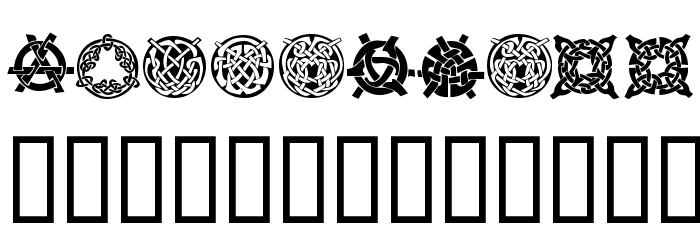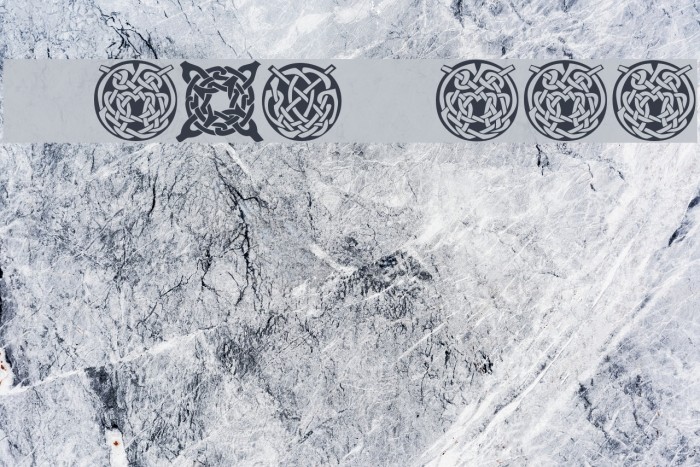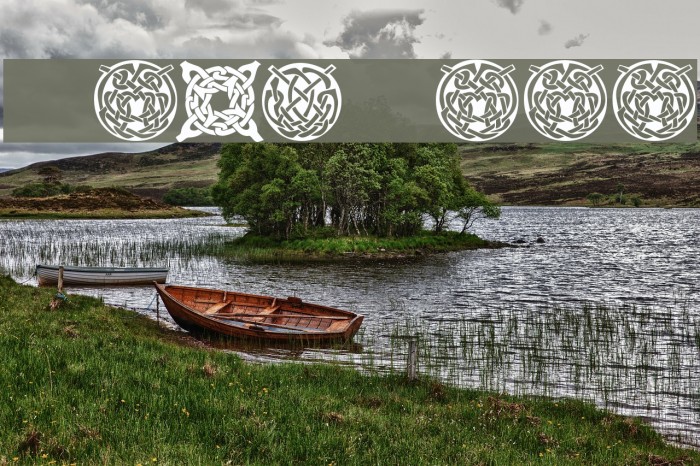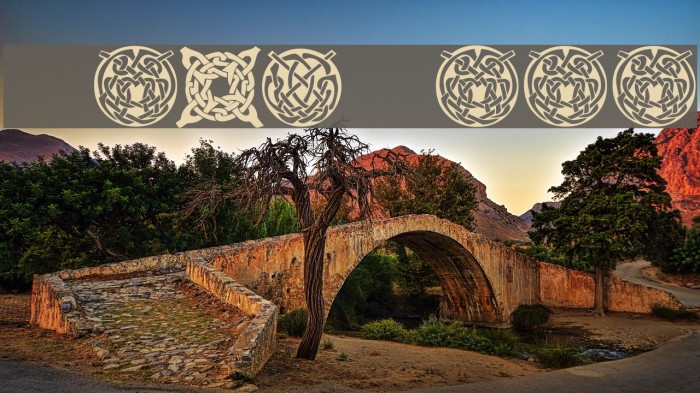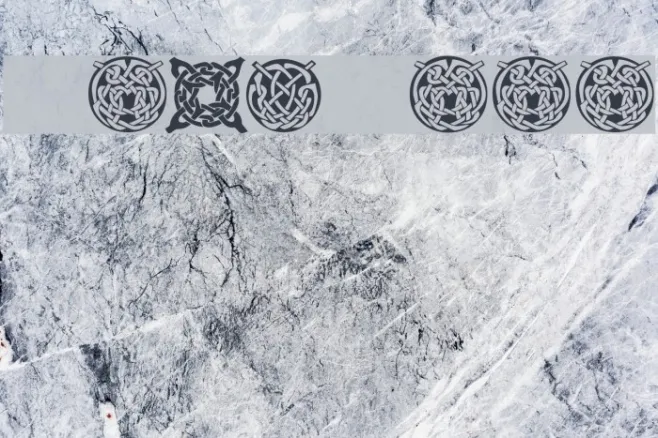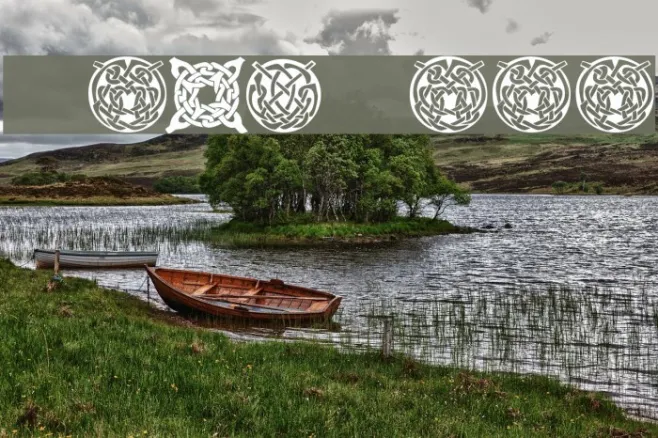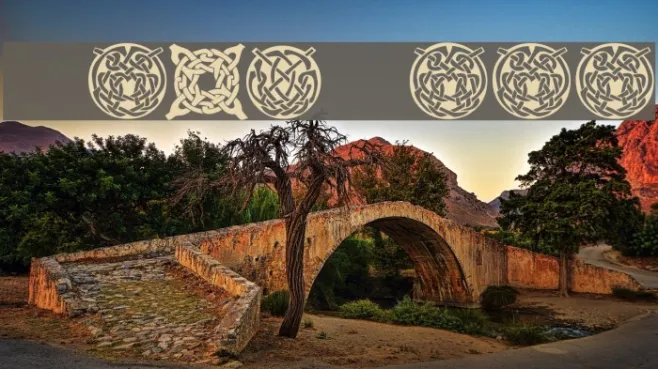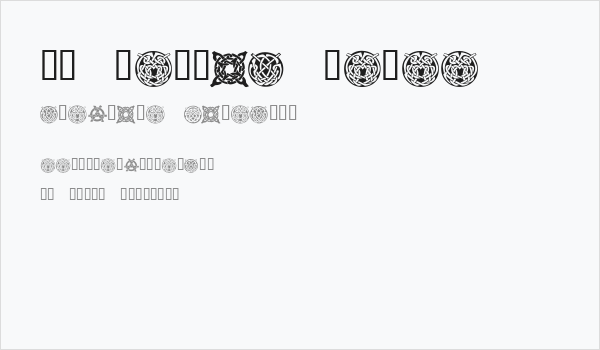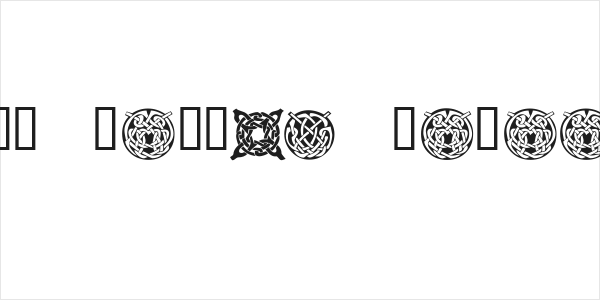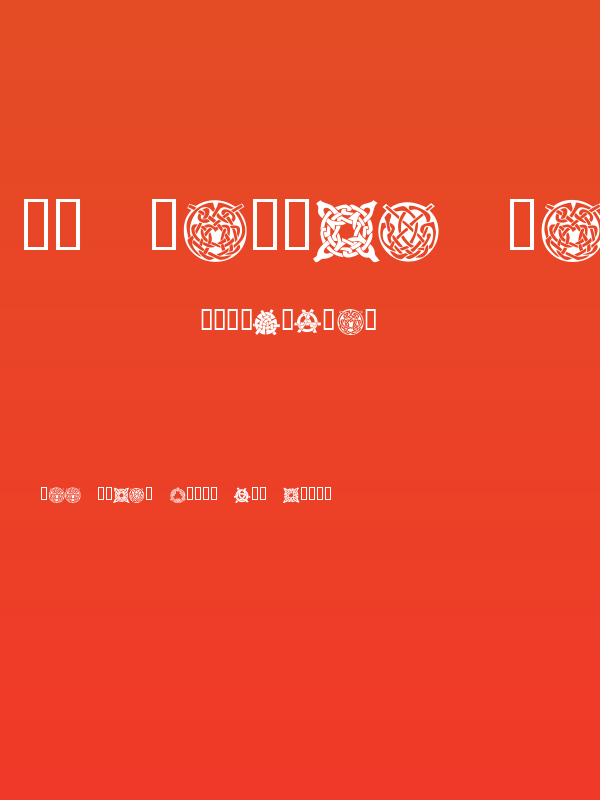
KR Keltic Three Font
This font is a decorative display typeface featuring intricate Celtic knot designs. Each character is enclosed in a circular or square frame, showcasing elaborate interwoven patterns typical of Celtic art. The font is highly ornamental, with each letter resembling a unique piece of artwork. The intricate details and symmetrical designs make it suitable for projects that require a touch of historical or cultural elegance. The font's complexity and artistic nature make it stand out, providing a distinct visual appeal.
A decorative font with intricate Celtic knot designs in each character.
- Proposed Projects: Ideal for use in cultural or historical themed designs, such as invitations, posters, or logos that require a unique and artistic touch.
- Use Case: Logos, Headlines, Decorative elements